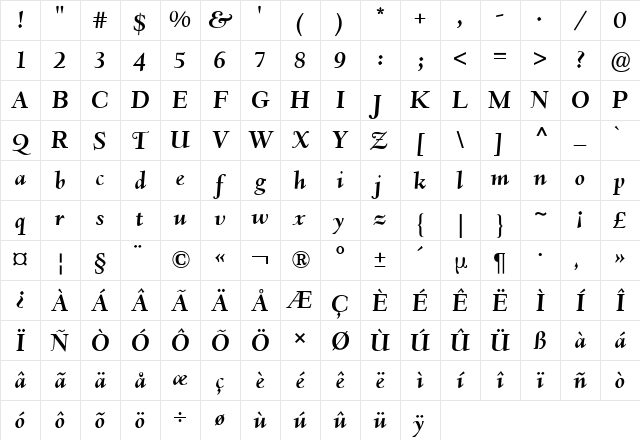
Deepdene BQ ItalicBold
Style: ItalicBold
Foundry: COPYRIGHT H. BERTHOLD AG Alle Rechte vorbehalten
Deepdene BQ Family
Deepdene BQ ItalicBold
Design Context for Deepdene BQ
Deepdene BQ is a composed and adaptable typeface that performs quietly and consistently across a wide range of design contexts. The slanted form adds forward momentum and visual energy. Its bold stroke weight gives it real presence on the page.
Pro Tip: Use Deepdene BQ for emphasis, pull quotes, and subheadings where its slanted energy can add rhythm to the layout.